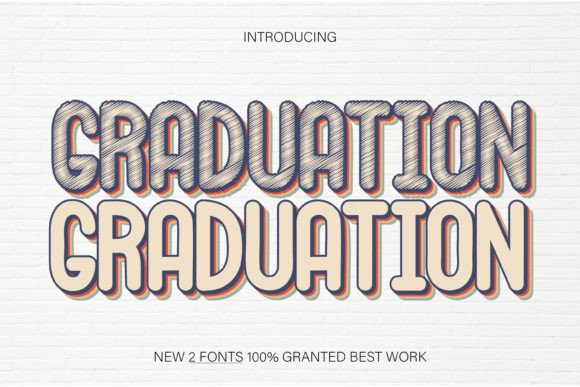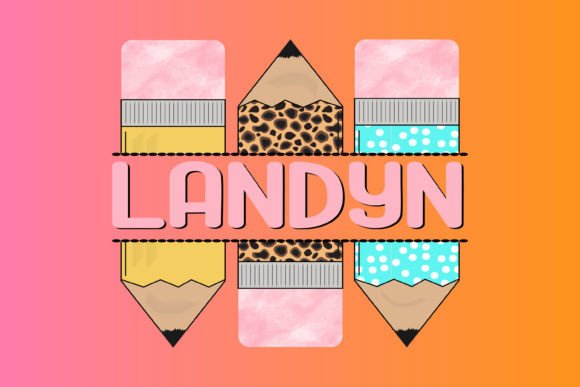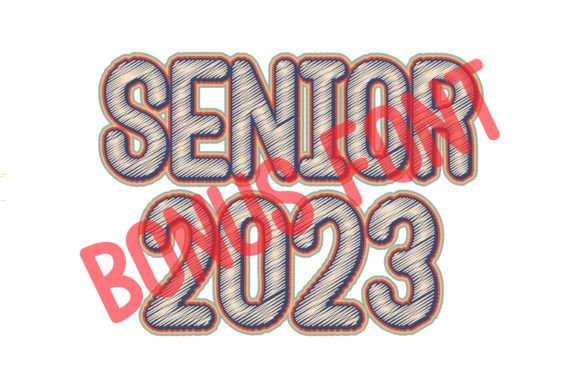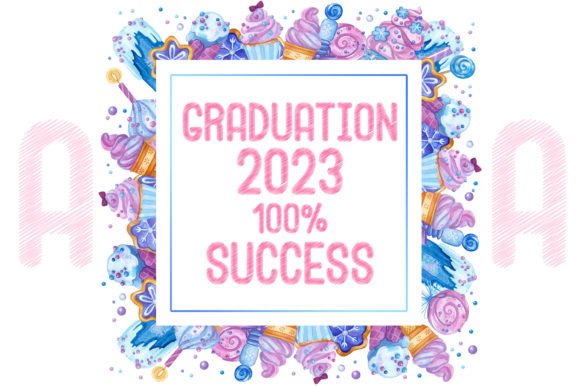
Introducing Graduation Font: The Ultimate Display Font for Crafty Creations
Are you a designer or crafter looking for a font that can add a touch of personality to your handmade projects or advertising materials? Look no further than Graduation Font, an eye-catching display font that is sure to make your creations stand out from the crowd. With its bold lines and unique, attention-grabbing style, Graduation Font is the perfect choice for anyone who wants to add a bit of flair to their designs.
What is Graduation Font?
Graduation Font is a carefully crafted display font that features bold, expressive lines and a distinctive, handmade look. The font’s unique style is reminiscent of crafts and DIY projects, making it an ideal choice for designers and crafters who want to add a personal touch to their work. Whether you’re creating handmade cards, crafting unique advertising materials, or simply looking for a font that can help your designs stand out, Graduation Font is the perfect choice.
Key Features of Graduation Font
So, what makes Graduation Font so special? Here are just a few of the key features that set this font apart:
- Bold Lines: Graduation Font features bold, expressive lines that are sure to grab attention. Whether you’re using the font for a headline or a decorative element, its bold lines are sure to make a statement.
- Unique Style: The font’s unique, handmade look is perfect for designers and crafters who want to add a personal touch to their work. With its distinctive style, Graduation Font is sure to set your designs apart from the crowd.
- Attention-Grabbing: As its name suggests, Graduation Font is designed to grab attention. Whether you’re using the font for advertising, promotional materials, or simply want to add a bit of flair to your designs, Graduation Font is sure to captivate your audience.
- Versatile: Despite its bold, eye-catching style, Graduation Font is surprisingly versatile. The font can be used for a wide range of design projects, from handmade cards and crafts to advertising and promotional materials.
How to Use Graduation Font
So, how can you use Graduation Font in your designs? Here are just a few ideas to get you started:
- Handmade Cards: Add a personal touch to your handmade cards with Graduation Font. The font’s bold lines and unique style are perfect for creating eye-catching greetings and messages.
- Advertising Materials: Use Graduation Font to create eye-catching advertising materials, such as flyers, brochures, and posters. The font’s attention-grabbing style is sure to help your ads stand out from the crowd.
- Crafts: Graduation Font is perfect for a wide range of crafts, from scrapbooking and journaling to knitting and sewing. Add a bit of personality to your crafts with this unique and eye-catching font.
- Digital Designs: Graduation Font can also be used for digital designs, such as social media graphics, blog posts, and website headers. The font’s bold lines and unique style are sure to add a bit of flair to your digital creations.
Why Choose Graduation Font?
So, why should you choose Graduation Font for your design projects? Here are just a few reasons why this font is a great choice:
- Unique Style: Graduation Font features a unique, handmade look that is sure to set your designs apart from the crowd.
- Attention-Grabbing: The font’s bold lines and attention-grabbing style are sure to captivate your audience and make your designs stand out.
- Versatile: Graduation Font can be used for a wide range of design projects, from handmade cards and crafts to advertising and promotional materials.
| Author | MistyDesigns |
In conclusion, Graduation Font is a unique and eye-catching display font that is perfect for designers and crafters who want to add a bit of personality to their handmade projects or advertising materials. With its bold lines, unique style, and attention-grabbing look, Graduation Font is sure to make your creations stand out from the crowd. So why wait? Download Graduation Font today and start creating eye-catching designs that are sure to captivate your audience.